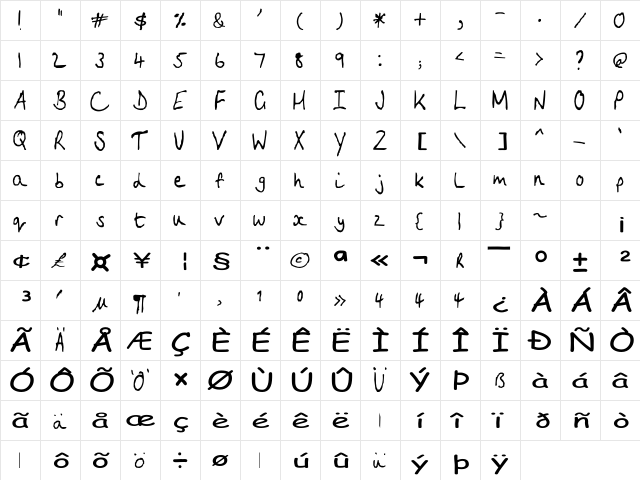
QEAndySully2 Regular
Design Context for QEAndySully2 Typeface
QEAndySully2 is a composed and adaptable typeface that performs quietly and consistently across a wide range of design contexts.